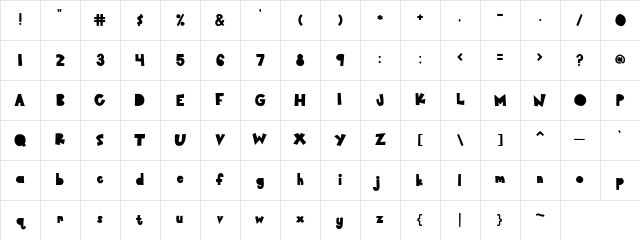
Paper Cutout is a composed and adaptable typeface that performs quietly and consistently across a wide range of design contexts.
Pro Tip: Use Paper Cutout in both headline and body roles to test its range before committing to a single application.